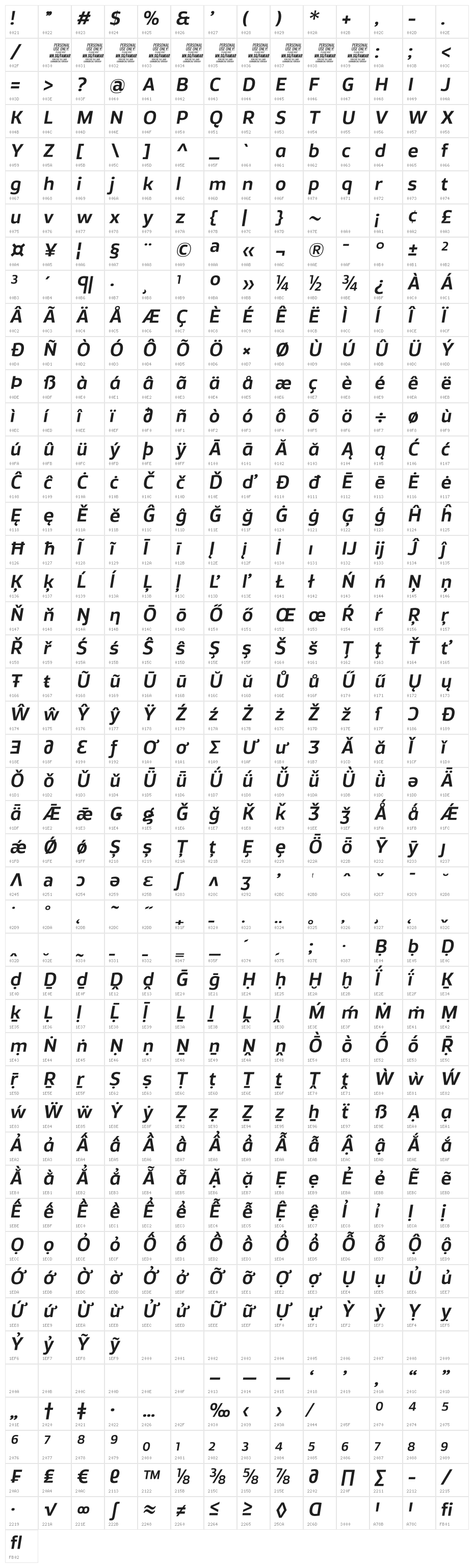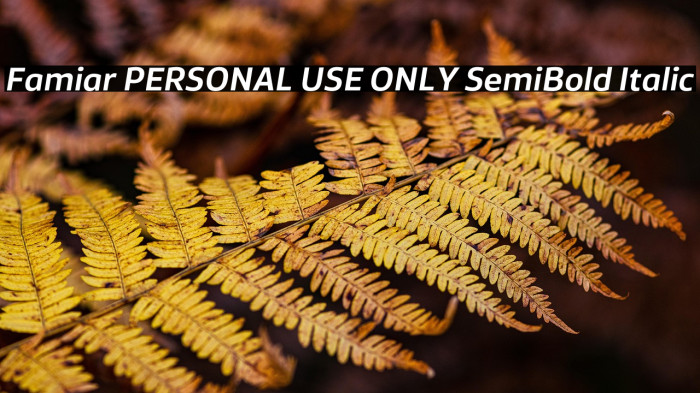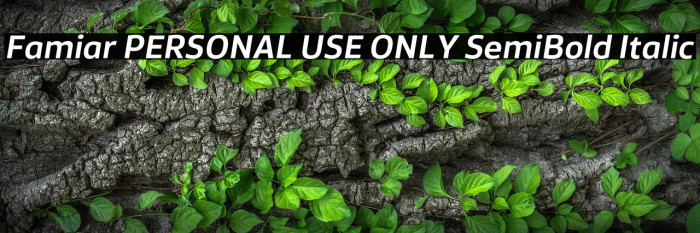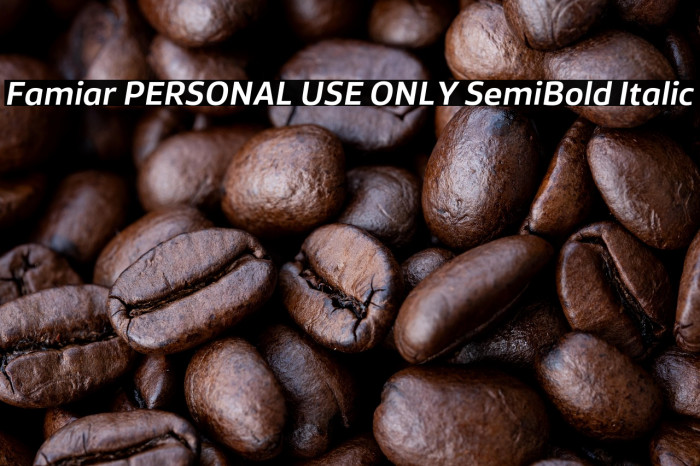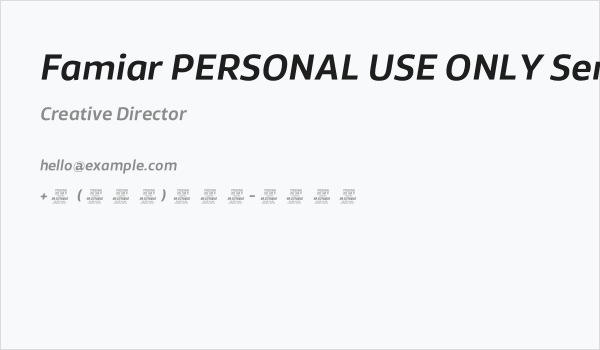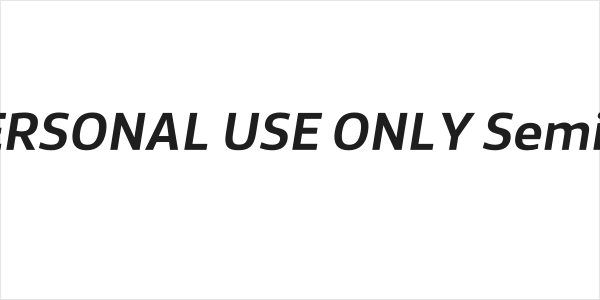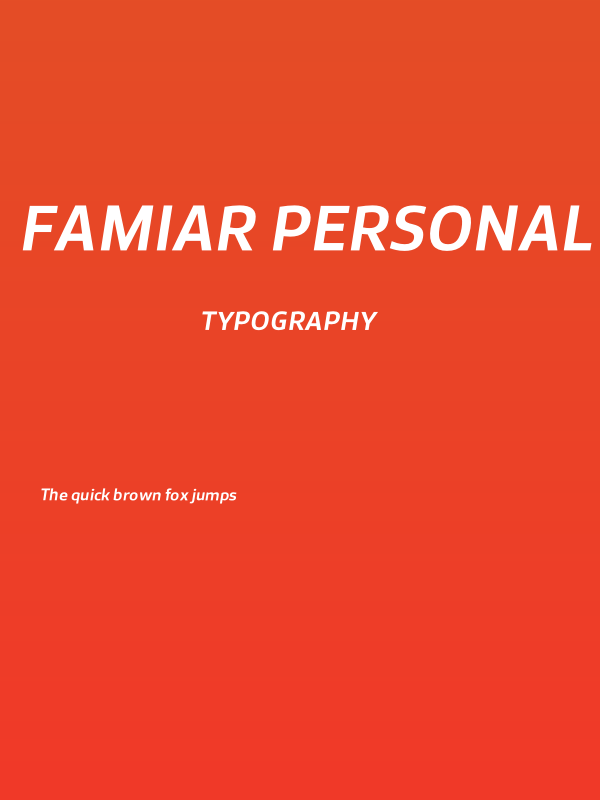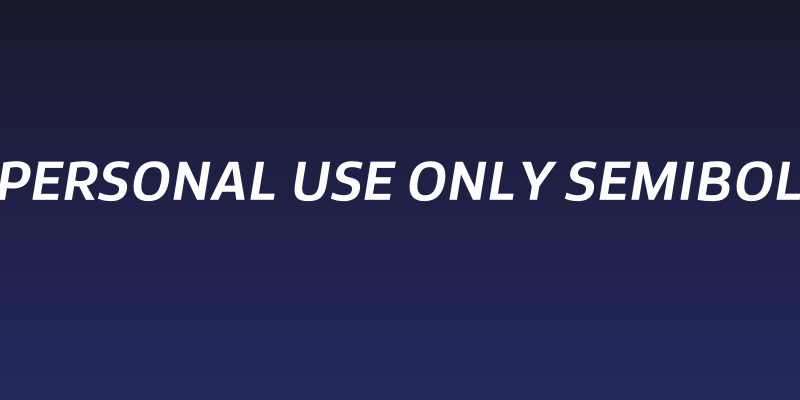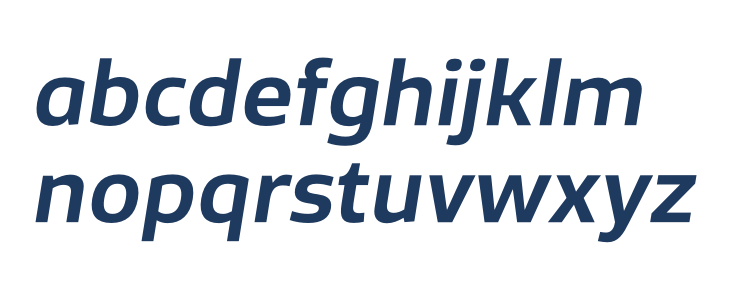
Famiar PERSONAL USE ONLY SemiBold Italic Font
Famiar PERSONAL USE ONLY SemiBold Italic Description
This font exhibits a modern and sleek design with a semi-bold weight and italic style. The characters are slightly slanted, giving a dynamic and forward-moving appearance. The uppercase and lowercase letters maintain a consistent style, with smooth curves and clean lines. The numerals and special characters are designed to match the overall aesthetic, providing a cohesive look across all elements. The font's semi-bold weight ensures readability while adding a touch of elegance and sophistication.
| Proposed Projects | Ideal for branding, advertising, and editorial design where a modern and stylish look is desired. |